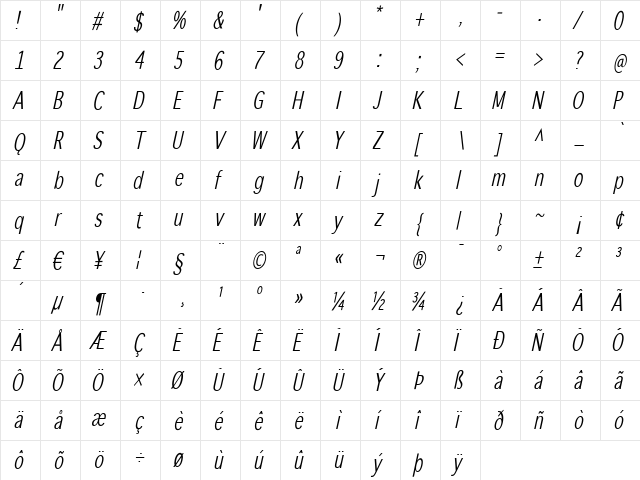
WinterthurCondensed Italic
Design Context for WinterthurCondensed Typeface
WinterthurCondensed offers clean, dependable letterforms without strong stylistic allegiance, making it a practical choice for designers who need flexibility. Its italic angle brings a sense of urgency and motion to the letterforms. Its narrow stance lets it pack a punch even in space-constrained designs.
Pro Tip: Try WinterthurCondensed for annotation and caption copy alongside an upright companion — the contrast in angle creates a dynamic but ordered typographic system.